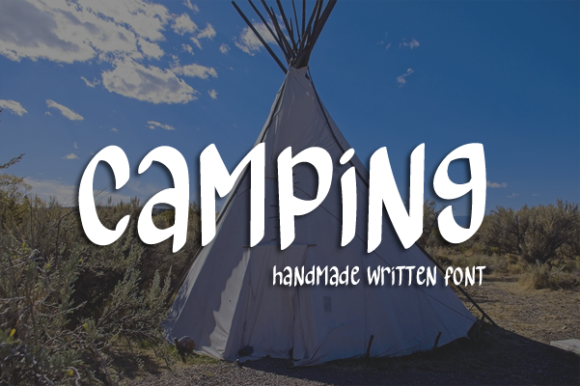
The Great Outdoors, in Fonts: Discovering Camping Font
I still remember the time I was working on a camping brochure project, struggling to find the perfect font that would capture the essence of the great outdoors. My client wanted something that was both casual and adventurous, yet simple and easy to read. After hours of scouring through font libraries, I stumbled upon Camping Font, and it was love at first sight! 🌟
Camping Font is a unique, themed, and casual handwritten font that instantly elevated my design game. With its strong visual effect, it made my creation more appealing than any others I’d seen. In this article, I’ll share my honest review, a practical guide on how to use it, and some awesome alternatives to explore.
• ✅ Unique and casual handwritten style that’s perfect for creative projects
• ✅ Simple yet strong visual effect that grabs attention
• ✅ Easy to read, even in smaller font sizes
• ✅ Great for a variety of design projects, from brochures to social media graphics
• ⚠️ Limited character set, which might not be suitable for projects requiring extensive language support
• ⚠️ Might not be the best fit for formal or corporate designs, as it’s quite casual
The Story Behind Camping Font
Camping Font was designed with the great outdoors in mind. Its creator, a passionate typographer, wanted to capture the essence of camping and adventure in a simple, yet striking font. Inspired by handwritten signs and trail markers, Camping Font is perfect for designs that need a touch of wilderness magic. 🌲
Q: Is Camping Font suitable for body text?
A: While Camping Font is easy to read, it’s best suited for headlines, titles, and short paragraphs. For longer body text, you might want to choose a more traditional font.